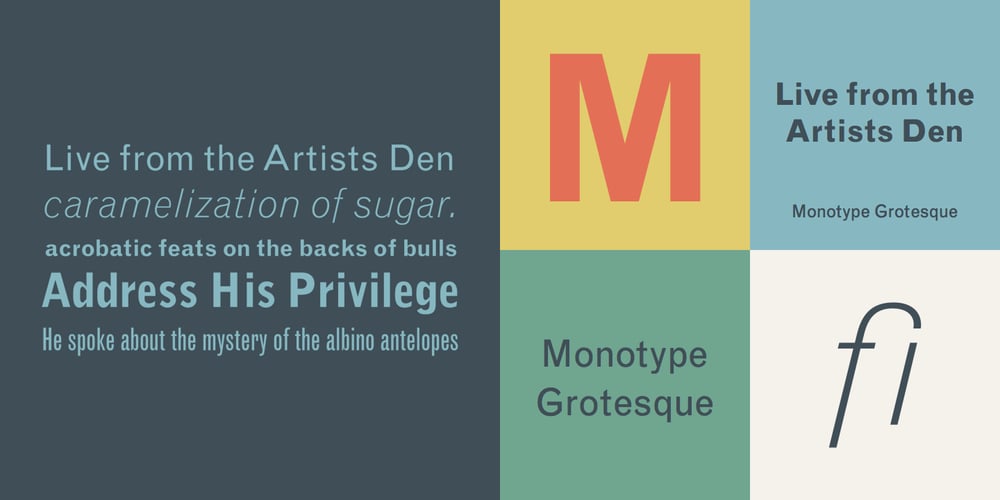
Monotype Grotesque Font Family was designed by Steve Matteson, Frank Hinman Pierpont, Monotype Design Studio, Frank and published by Monotype. Monotype Grotesque contains 12 styles and family package options. This updating of Berthold’s Ideal Grotesque was supervised at Monotype in 1926 by F.H. Pierpont. With some of the eccentricities in the borrowed original reduced, this series retains enough character to have become one of the world’s great sanserifs.